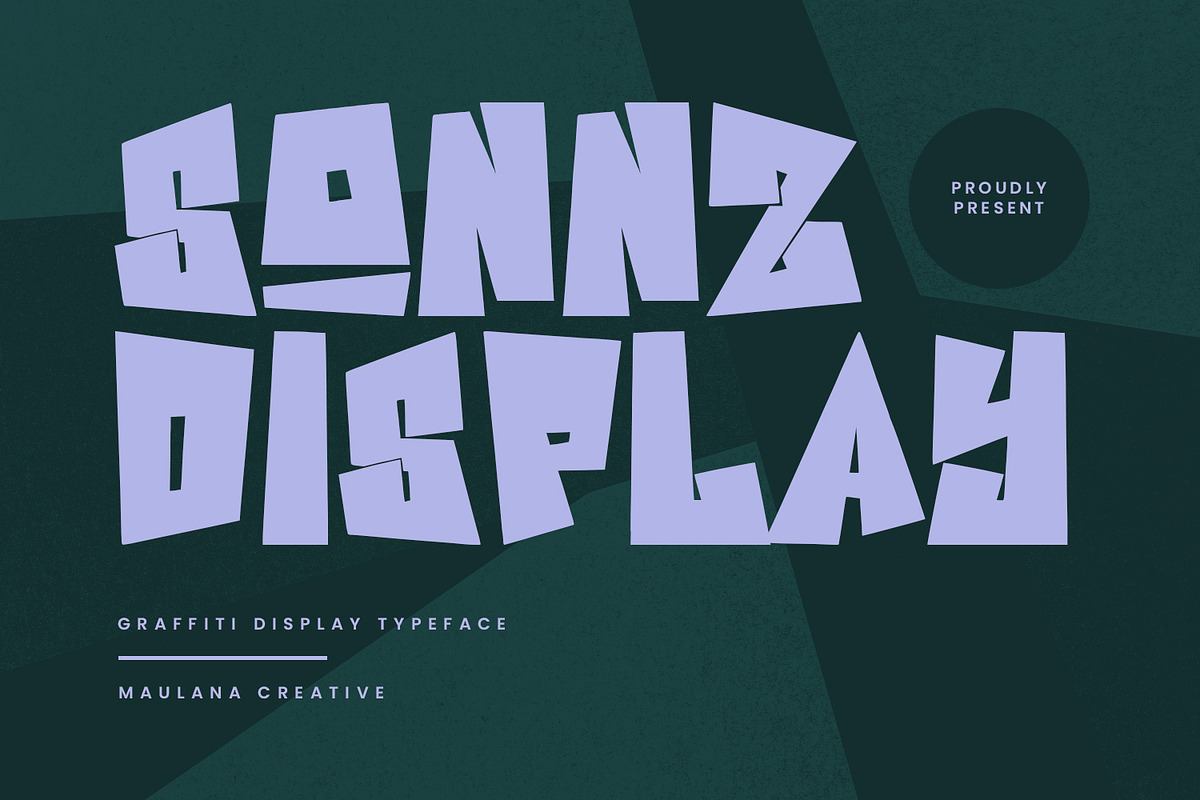
Sonnz Graffiti Display Typeface Free Download
Sonnz Graffiti Display Typeface Free Download is a bold, urban-inspired font that channels the raw energy of street art. With its edgy letterforms, spray-paint aesthetics, and rebellious vibe, this typeface is perfect for music posters, streetwear branding, edgy social media graphics, and creative projects that need to stand out with attitude.
Crafted to mimic the spirit of graffiti culture, Sonnz Graffiti Display Typeface Free Download brings a gritty, expressive feel to your work. It's ideal for designers looking to break from the clean and polished, and instead embrace something loud, bold, and full of character.